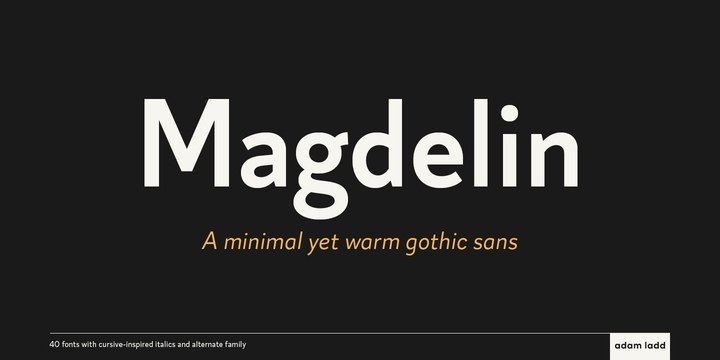
Magdelin Font
Magdelin Font is perfect for spiritual wellness centers, sacred feminine branding, transformational coaching materials, mindfulness retreat signage, inspirational quote graphics, healing arts practices, women's empowerment campaigns, spiritual bookstore materials, sacred ceremony invitations, and contemplative lifestyle publications.
What makes Magdelin Font so exciting is its extraordinary ability to embody spiritual transformation and sacred feminine wisdom through letterforms that seem to carry the gentle power of inner awakening and the profound grace of spiritual evolution. This transformative typeface captures the essence of spiritual journey and feminine divine energy with characters that radiate both mystical depth and grounded wisdom. The font's sacred design elements perfectly balance spiritual authenticity with contemporary accessibility, creating an indispensable tool that communicates spiritual authority, feminine empowerment, and transformational wisdom, making it essential for brands and practitioners helping others discover their inner truth and sacred purpose through healing, growth, and spiritual awakening.
Magdelin Font comes in multiple font families including Regular, Bold, Light, Italic, Bold Italic, Sacred, Transformational, and Mystical variations. Each family member maintains the core spiritual characteristics while offering different wisdom levels and sacred approaches to suit various spiritual and transformational design requirements.
The Magdelin Font Free Download provides spiritual practitioners and transformational organizations with an exceptional resource for creating authentic materials that honor the sacred feminine while guiding others on their spiritual journey toward healing and empowerment. This remarkable typeface distinguishes itself through its unique ability to communicate themes of spiritual transformation, feminine wisdom, and sacred healing. Whether you're developing spiritual coaching brands, creating transformational workshop materials, or designing sacred ceremony communications, this font ensures your message radiates the gentle power and profound wisdom that seekers of spiritual truth and feminine empowerment truly need and seek.
The transformational precision in Magdelin Font makes it particularly effective for spiritual healing and feminine empowerment industries where conveying authentic spiritual wisdom and sacred feminine energy is crucial for connecting with souls seeking genuine transformation and spiritual awakening. Its sacred letterforms work beautifully across both intimate spiritual materials and broader transformational communications, maintaining consistent spiritual authenticity and feminine grace.
Spiritual transformation professionals appreciate how Magdelin Font transforms ordinary communications into sacred invitations to inner healing and feminine empowerment. The typeface's mystical character set includes special spiritual symbols, sacred feminine elements, and transformational features that enhance the overall spiritual atmosphere of any sacred or healing-focused project.
For creative professionals serving spiritual healers, transformational coaches, and sacred feminine organizations, Magdelin Font serves as the perfect foundation for establishing memorable visual identities that capture the essential qualities of spiritual transformation, feminine wisdom, and sacred healing that define successful practitioners guiding others toward their highest truth and most empowered spiritual expression in their sacred journey of awakening and transformation.